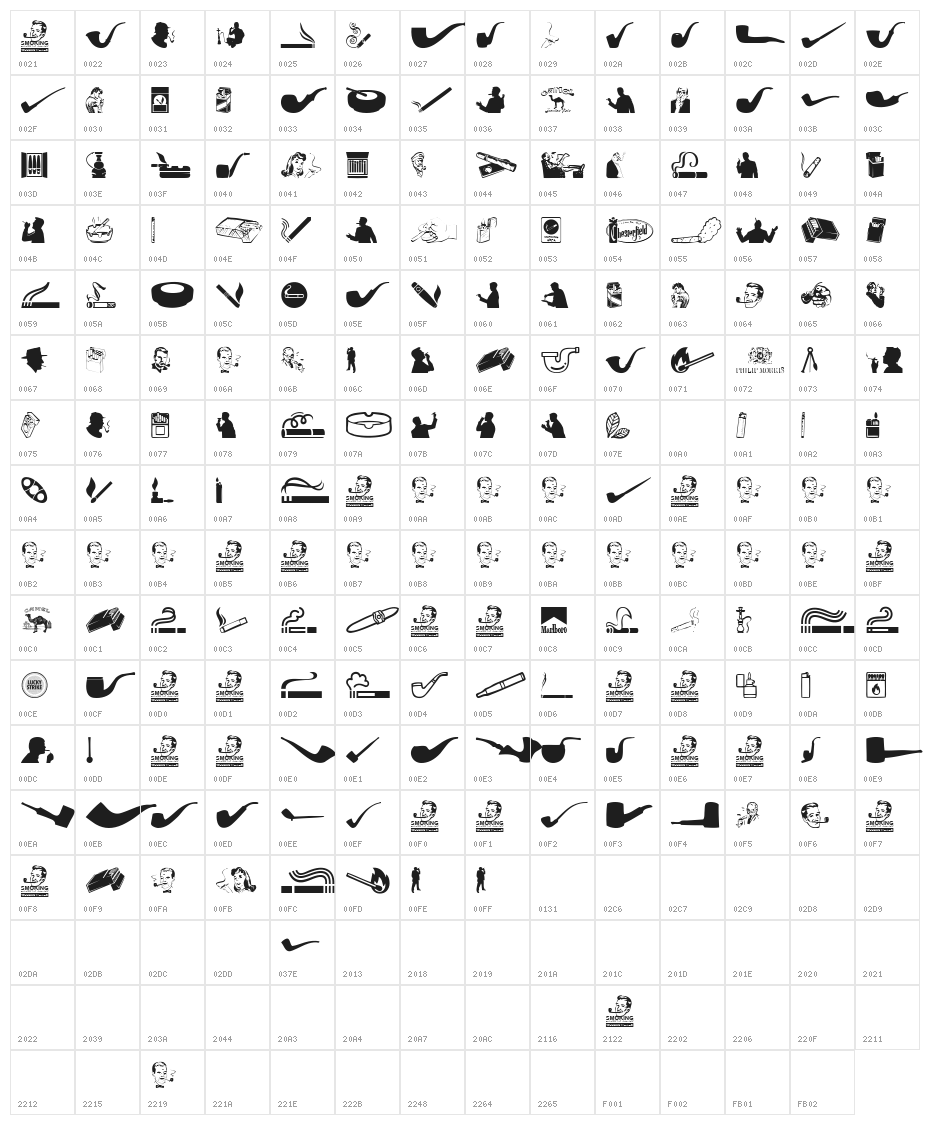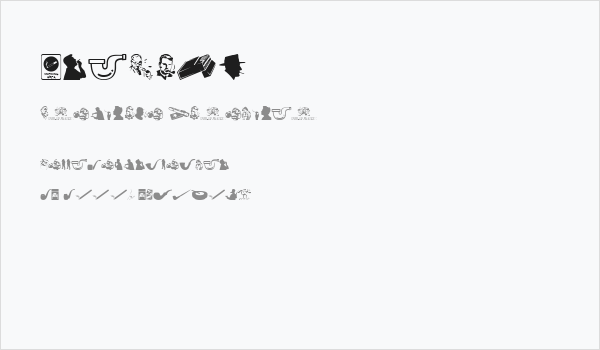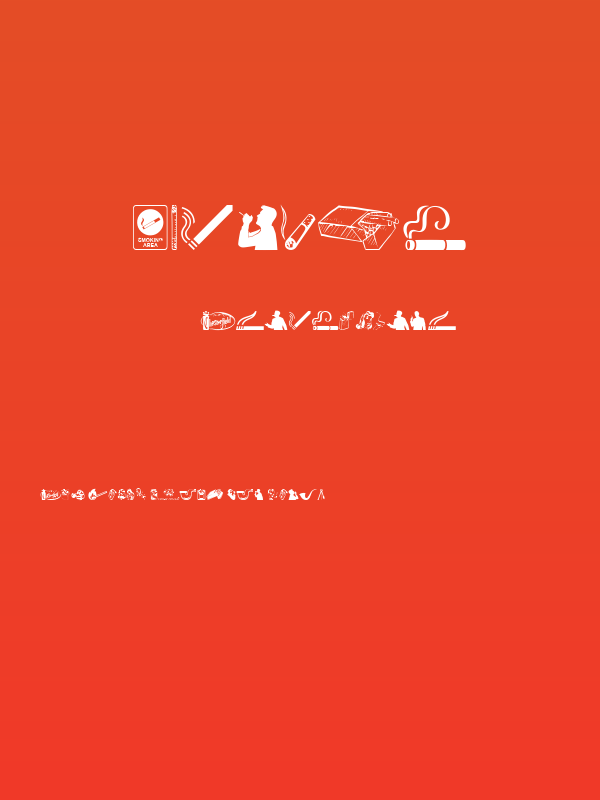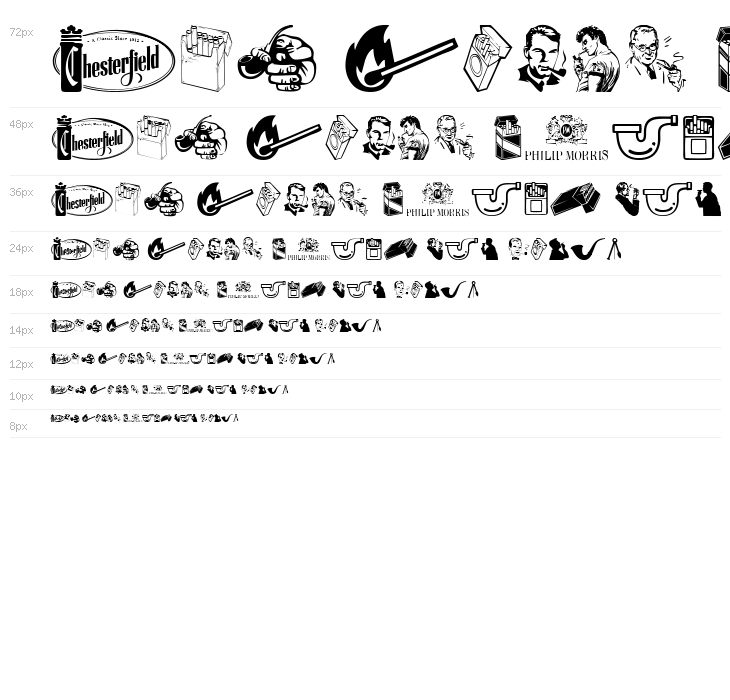
Smoking Font
Smoking Description
A decorative dingbat font featuring a variety of black-and-white illustrations related to smoking, including cigarettes, pipes, ashtrays, smoke, people smoking, and vintage advertising motifs. The glyphs are highly stylized and detailed, evoking a retro, mid-century aesthetic.
Overall StyleVintage, Decorative
Use CaseLogos, Posters, Themed Graphics, Editorials
Proposed ProjectsPosters, anti-smoking campaigns, themed party invitations, retro advertisements, editorial illustrations, novelty designs.